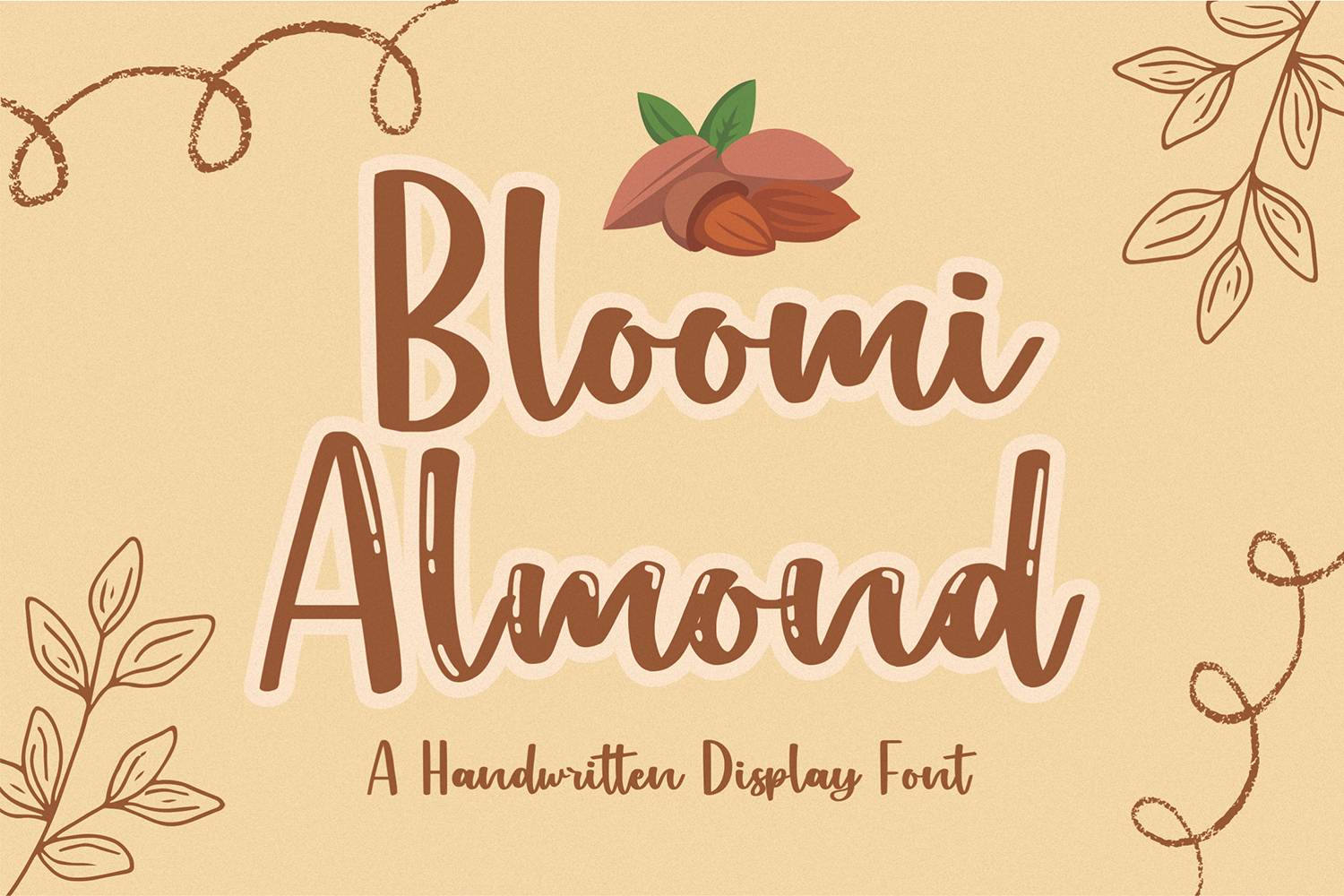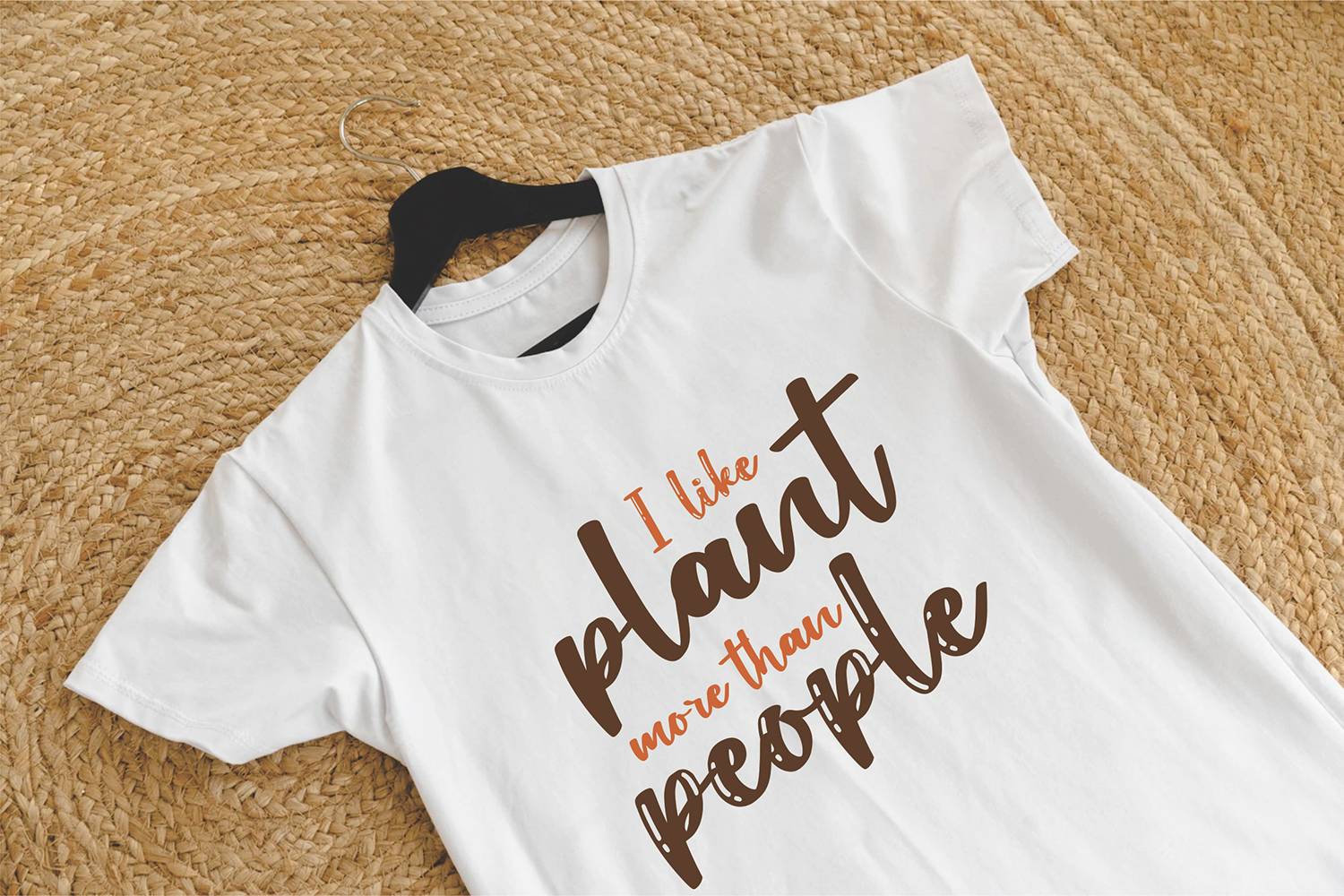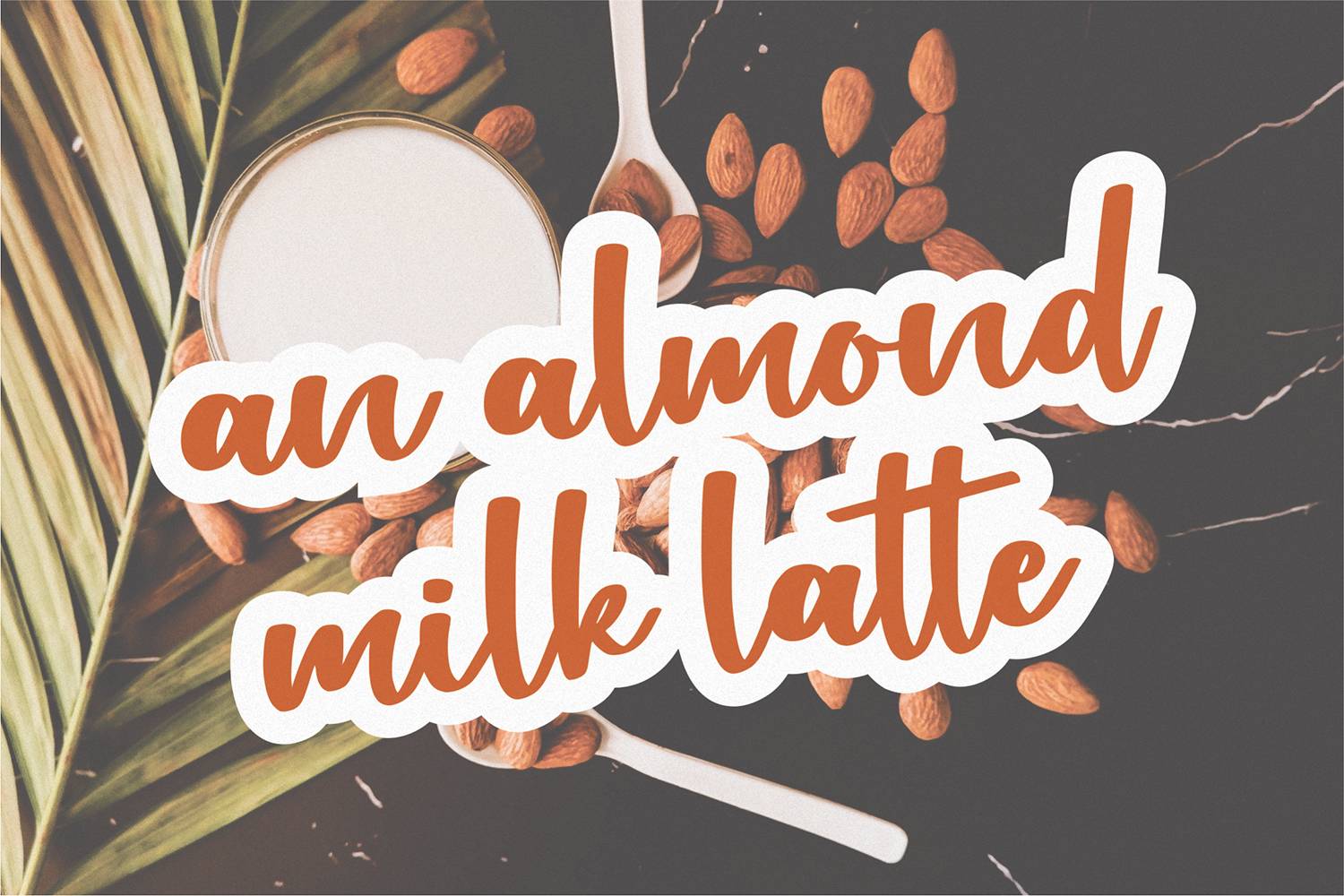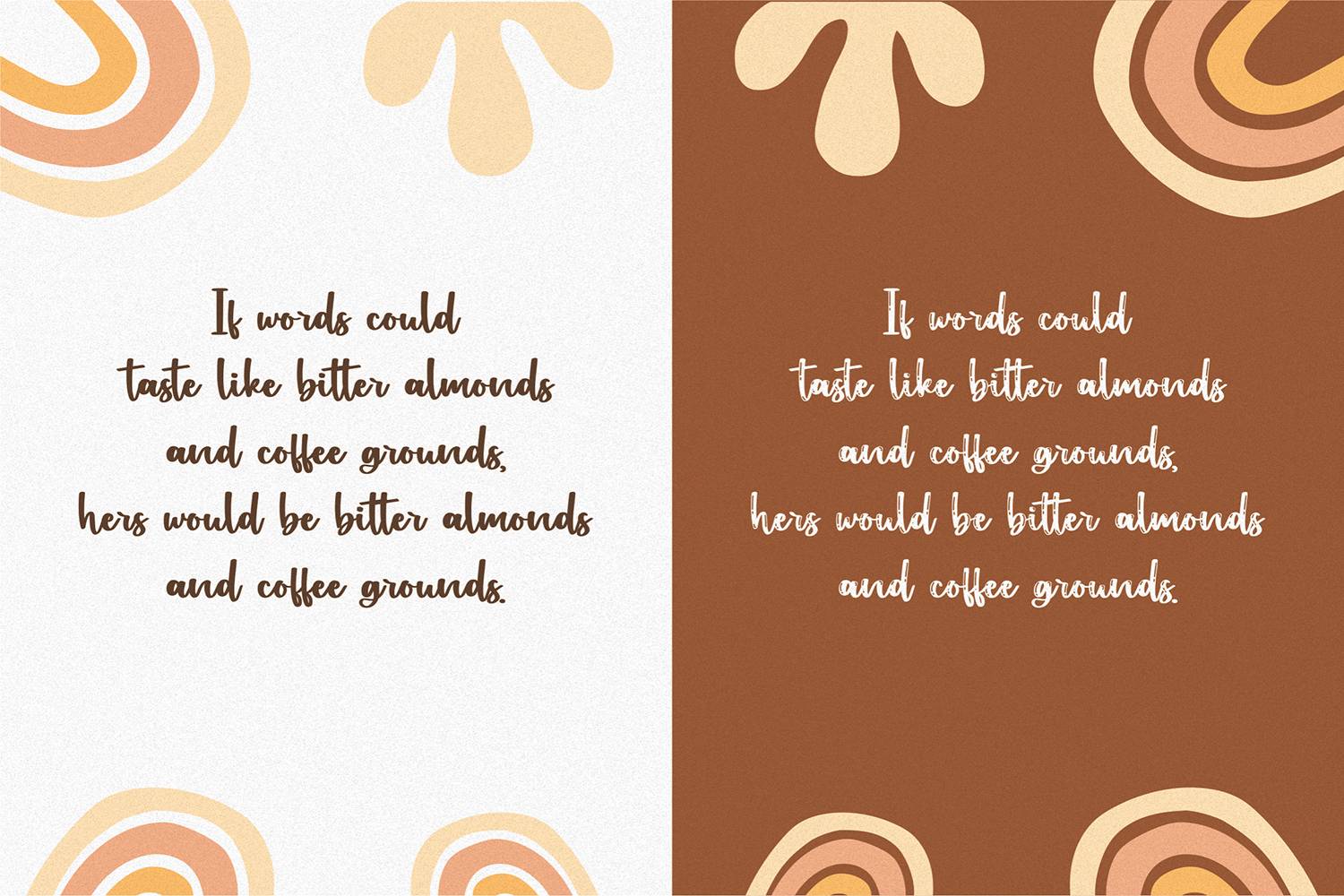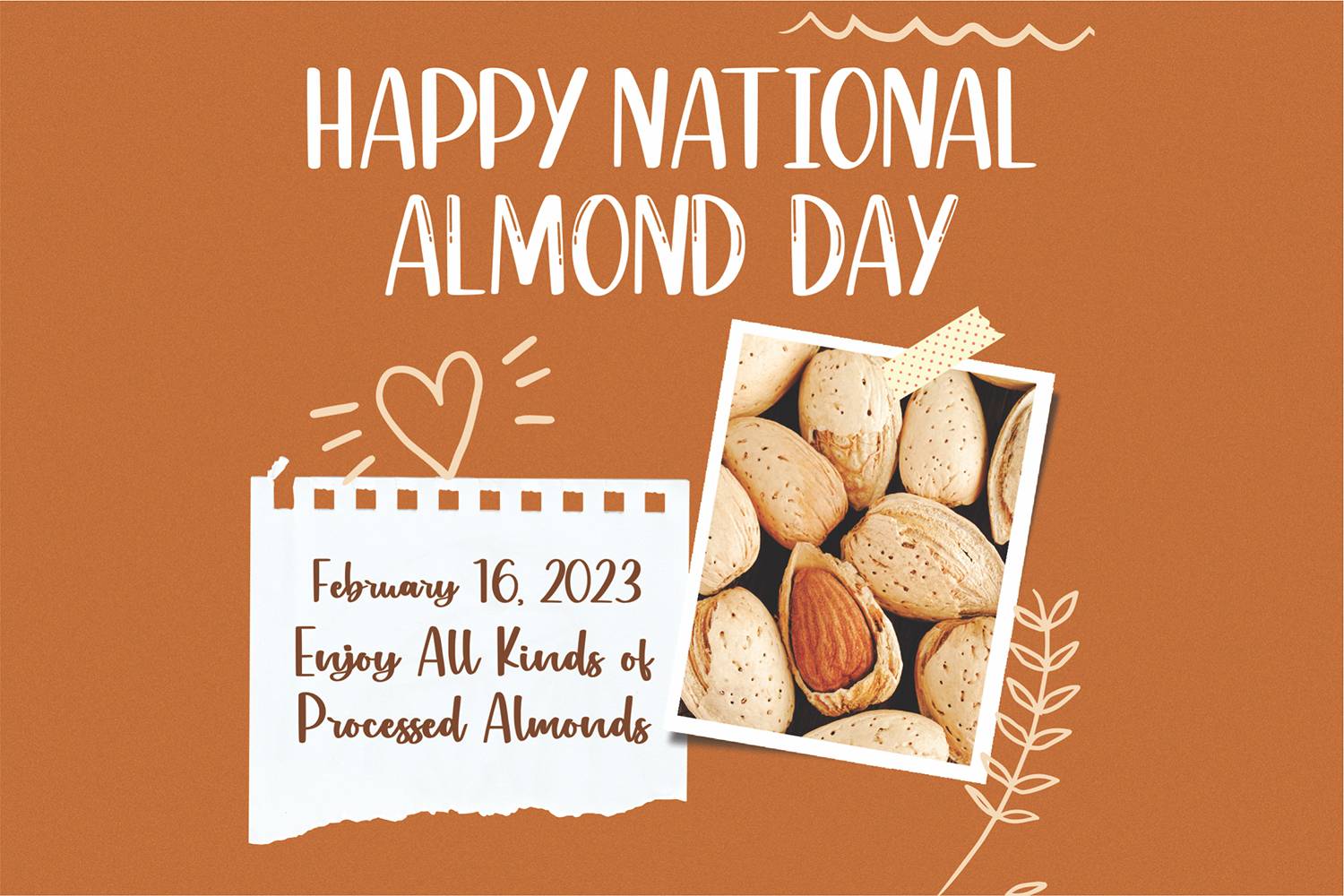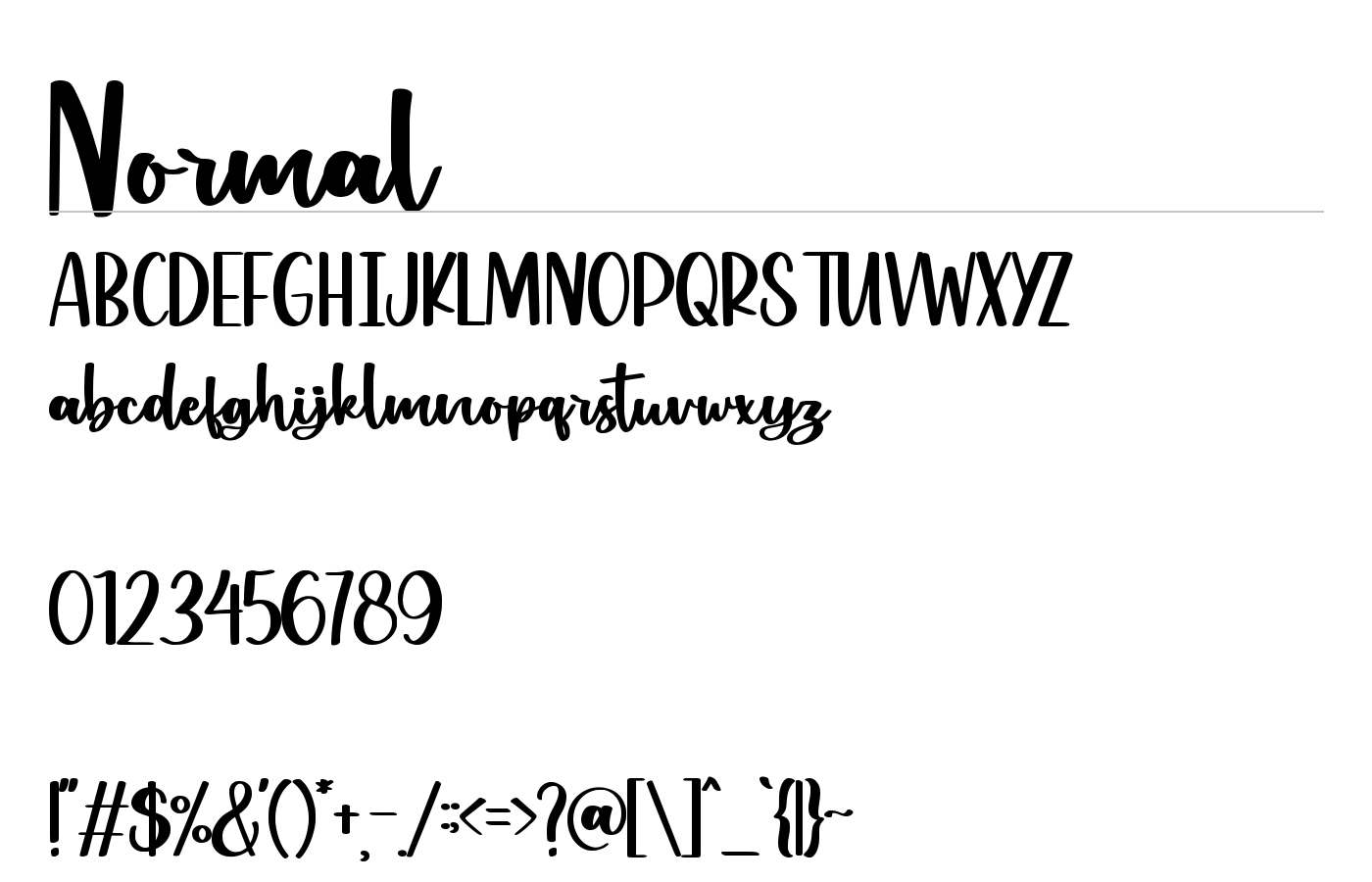
Bloomi Almond is a playful sans serif font with a lively mix of tall, narrow uppercase letters and a casual, brush-style lowercase that feels friendly and personal. Its smooth, rounded strokes and informal italicized lowercase make it perfect for creative projects, branding, or invitations where a warm, approachable vibe is desired. This font works best in headlines, logos, and packaging that benefit from a cheerful and modern touch.
Bloomi Almond Font
About Bloomi Almond Font